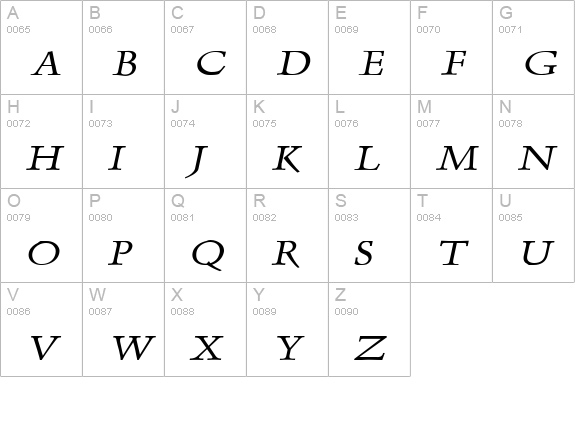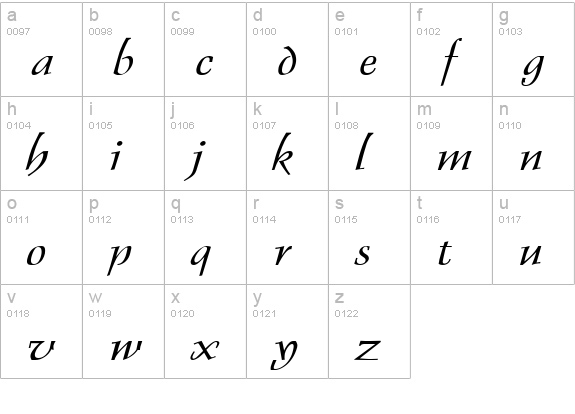
Dolphin Wide Italic is a distinctive, extended-width, italic variant in the Dolphin typeface family \xE2\x80\x94 well suited to design and typography projects.
Dive into the captivating world of Dolphin Wide Italic font, a sleek and modern typeface that exudes elegance and sophistication. Its distinctive wide design adds a touch of flair to any project, making it perfect for headlines, logos, and branding materials. This font strikes the perfect balance between professionalism and creativity, making it ideal for a wide range of design applications. The italic styling adds a dynamic and stylish touch, ensuring that your text stands out and makes a lasting impression. Best of all, Dolphin Wide Italic font is available for free download at FontsMarket.com. This means you can easily access this beautiful typeface and incorporate it into your designs without any cost. Don't miss out on the opportunity to enhance your projects with this versatile and eye-catching font.